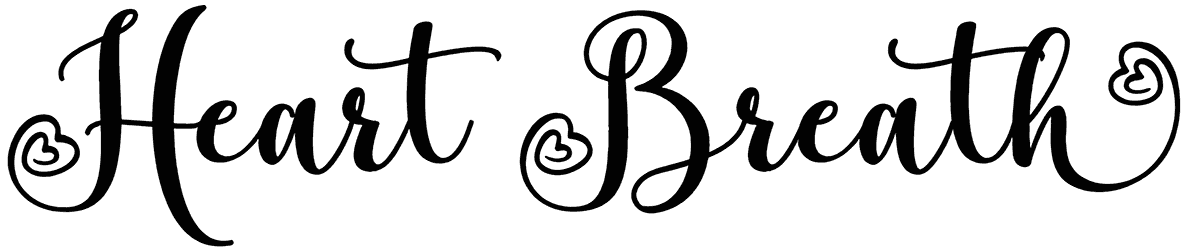
Heart Breath Font
When it comes to showing a design in a lovely and cheerful mood, you need to use soft lettering, and what can be better than a heart font? Heart Breath font provides you with an amazing chance to garnish your words with smooth letters. This Valentine’s Day font, with its perfect support of characters, will help you to create a party invitation card, a novel book cover, or so forth.